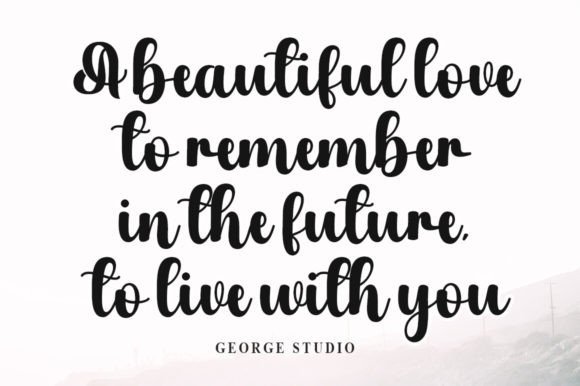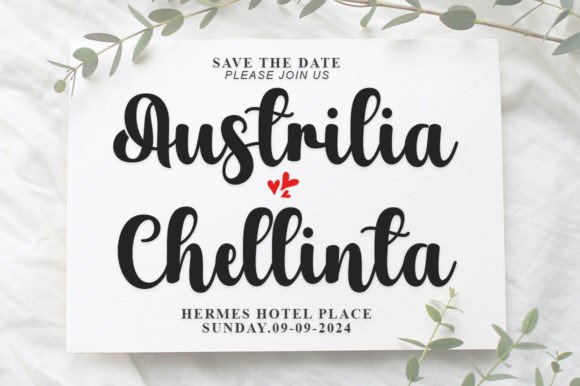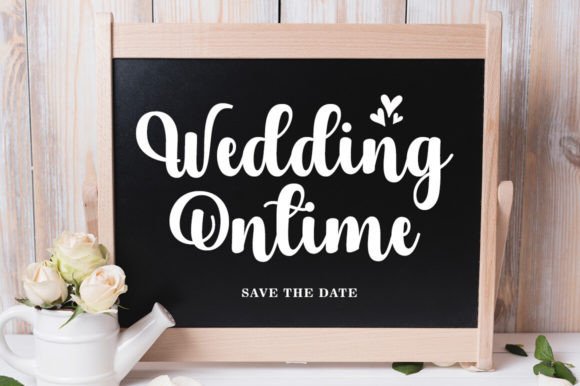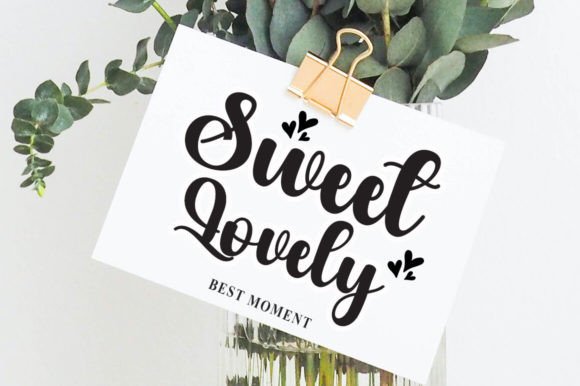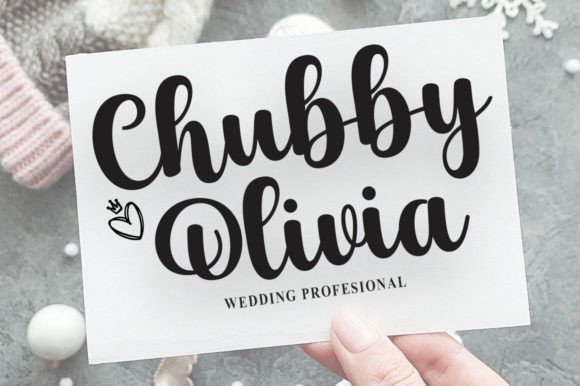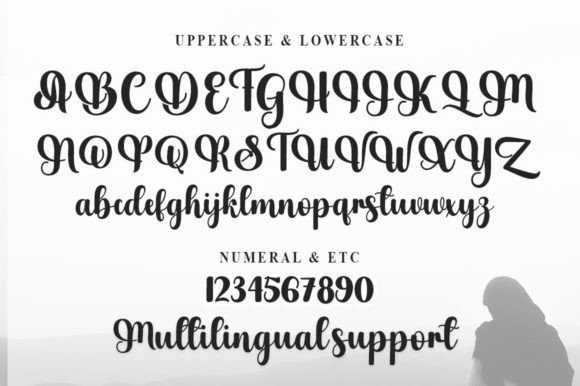
Discover the Elegance of Chilla Font: Elevate Your Design Projects
Are you a designer or crafter looking for a font that exudes charm and sophistication? Look no further than the Chilla Font. This stunning script font is a stylish homage to classic calligraphy, making it the perfect addition to any design project. From branding and titles to wedding designs, invitations, signs, logos, labels, and more, Chilla Font is sure to elevate your work to the highest level.
The Charm of Chilla Font
Chilla Font feels equally charming and elegant, making it a versatile choice for a wide range of design projects. Its elegant strokes and classic calligraphy-inspired design make it perfect for creating sophisticated and eye-catching designs. Whether you’re working on a wedding invitation, a logo, or a branding project, Chilla Font is sure to add a touch of elegance and refinement.
Key Features of Chilla Font
- Stunning Script Design: Chilla Font features a beautiful script design that is reminiscent of classic calligraphy. Its elegant strokes and flowing lines make it perfect for creating sophisticated and eye-catching designs.
- Versatile: Chilla Font is a versatile font that can be used for a wide range of design projects, from branding and titles to wedding designs, invitations, signs, logos, labels, and more.
- Elegant and Refined: Chilla Font exudes elegance and refinement, making it perfect for designers and crafters who want to create sophisticated and high-end designs.
Uses for Chilla Font
Chilla Font is a versatile font that can be used for a wide range of design projects, including:
- Branding: Use Chilla Font to create sophisticated and eye-catching branding materials, such as logos, business cards, and letterheads.
- Wedding Designs: Chilla Font is perfect for wedding designs, including invitations, wedding programs, and ceremony decor.
- Invitations: Use Chilla Font to create elegant and refined invitations for special occasions, such as birthdays, anniversaries, and graduations.
- Signs and Labels: Chilla Font can be used to create eye-catching signs and labels for businesses, events, and more.
- Logos and Icons: Use Chilla Font to create sophisticated and elegant logos and icons for businesses and brands.
Tips for Using Chilla Font
Here are a few tips for using Chilla Font in your design projects:
- Pair with Other Fonts: Chilla Font pairs well with other fonts, such as sans-serif fonts and serif fonts. Experiment with different font combinations to find the perfect look for your design.
- Use for Headlines and Titles: Chilla Font is perfect for headlines and titles, where its elegant and refined design can really shine.
- Experiment with Colors: Chilla Font looks great in a variety of colors, from classic black and white to bold and bright colors. Experiment with different colors to find the perfect look for your design.
| Font Name | Chilla Font |
| Author | George Studio |
In conclusion, Chilla Font is a stunning script font that is sure to elevate any design project to the highest level. Its elegant and refined design makes it perfect for a wide range of design projects, from branding and titles to wedding designs, invitations, signs, logos, labels, and more. With its versatility, elegance, and sophistication, Chilla Font is a must-have font for designers and crafters.